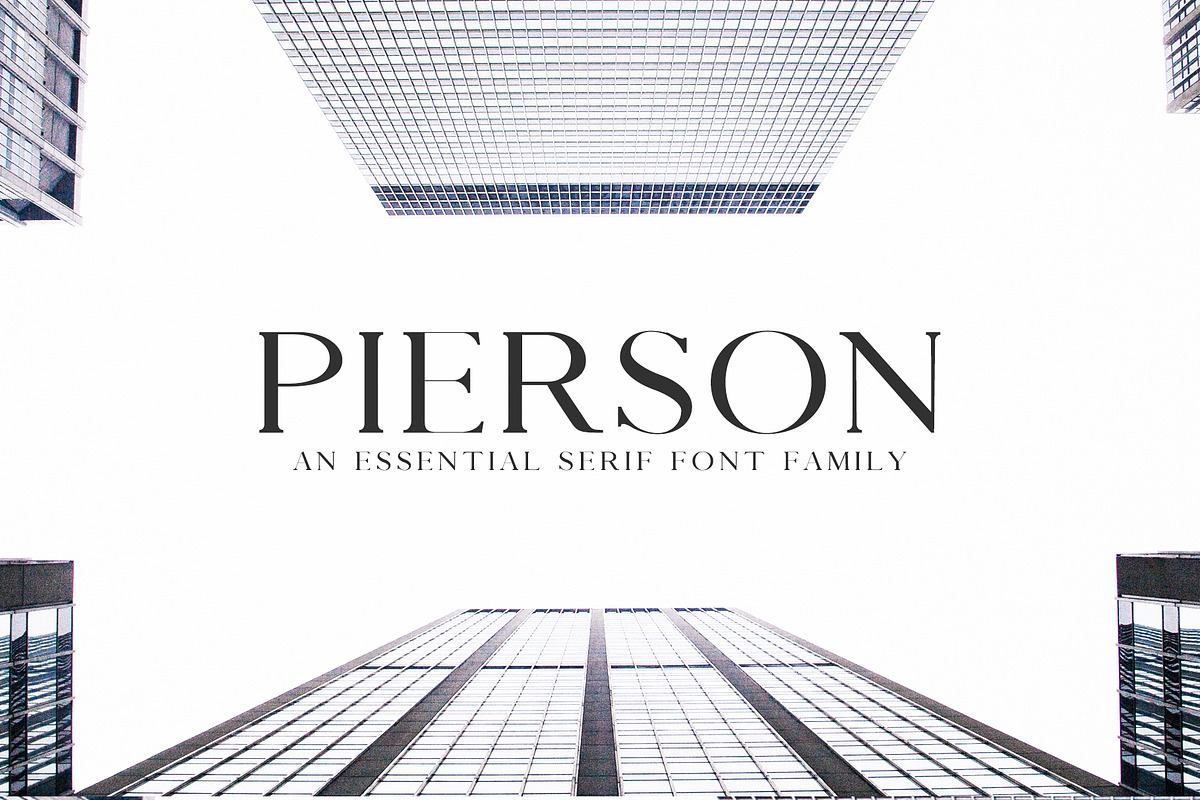
Pierson – An Essential Serif Typeface Free Download is a modern and versatile serif typeface designed with clarity and elegance in mind. Its sharp serifs and balanced proportions make it perfect for editorial designs, branding, logos, web design, and any project that demands a timeless, professional look.
The Pierson font offers excellent readability, making it ideal for both headlines and body text, while its sophisticated design ensures it stands out in any setting. Whether you're working on high-end branding, creative projects, or editorial layouts, this typeface provides a refined, polished aesthetic.
Add a touch of modern elegance and professionalism to your designs with Pierson!